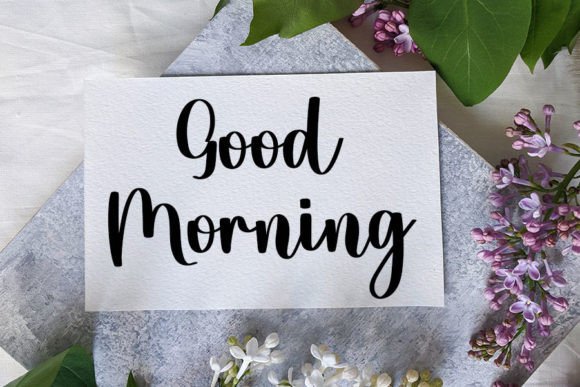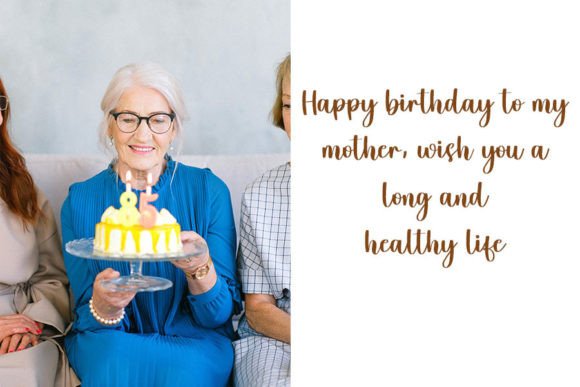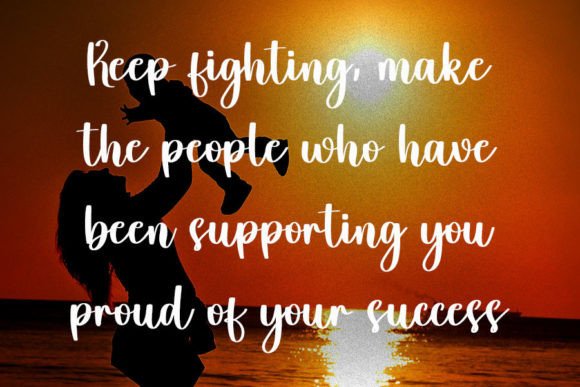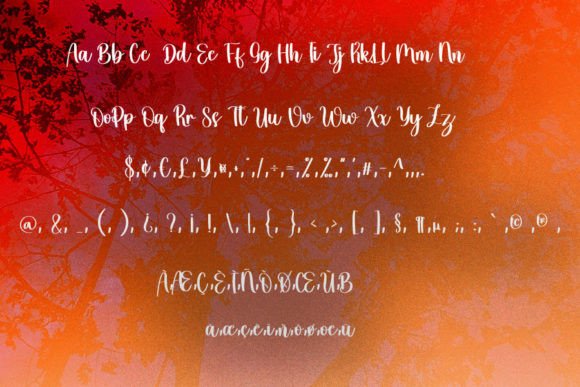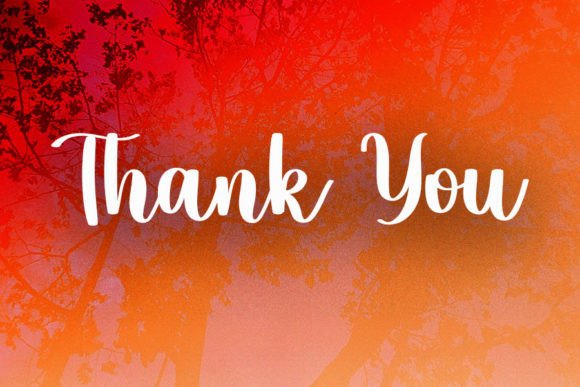
Introducing Birthday Font: The Sweet and Beautiful Handwritten Font for Your Design Projects
Are you looking for a font that can add a touch of luxury and elegance to your design projects? Look no further than the Birthday Font! This sweet and beautiful handwritten font is perfect for designers and crafters who want to create stunning designs that stand out from the crowd. In this article, we’ll take a closer look at the features of the Birthday Font and how you can use it to elevate your design projects.
A Font that Dances with Elegance
The Birthday Font is a handwritten font that features characters that dance along the baseline, giving it a playful and elegant feel. The font’s unique design makes it perfect for a variety of design projects, from birthday cards and invitations to branding and packaging. With its luxurious and sophisticated look, the Birthday Font is sure to add a touch of glamour to any design project.
Key Features of the Birthday Font
- Handwritten with love: The Birthday Font is a carefully crafted handwritten font that is designed to look like it was written with love and care.
- Dancing characters: The font features characters that dance along the baseline, giving it a playful and elegant feel.
- Luxurious and sophisticated: The Birthday Font has a luxurious and sophisticated look that is perfect for high-end design projects.
- Perfect for a variety of designs: The font is versatile and can be used for a variety of design projects, from birthday cards and invitations to branding and packaging.
How to Use the Birthday Font in Your Design Projects
The Birthday Font is easy to use and can be incorporated into a variety of design projects. Here are a few ideas to get you started:
- Birthday cards and invitations: The Birthday Font is perfect for creating custom birthday cards and invitations that are sure to impress.
- Branding and packaging: The font’s luxurious and sophisticated look makes it perfect for branding and packaging design projects.
- Social media graphics: The Birthday Font can be used to create stunning social media graphics that are sure to grab attention.
- Wedding and event designs: The font’s elegant and sophisticated look makes it perfect for wedding and event designs.
Tips for Getting the Most Out of the Birthday Font
Here are a few tips for getting the most out of the Birthday Font:
- Experiment with different colors: The Birthday Font looks great in a variety of colors, so don’t be afraid to experiment and find the perfect color for your design.
- Pair it with other fonts: The Birthday Font can be paired with other fonts to create a unique and interesting look.
- Use it in combination with images: The font looks great when used in combination with images, so consider adding a photo or illustration to your design.
The Birthday Font is a sweet and beautiful handwritten font that is perfect for designers and crafters who want to add a touch of luxury and elegance to their design projects. With its unique design and versatile features, the Birthday Font is sure to become a go-to font in your design arsenal. So why wait? Download the Birthday Font today and start creating stunning designs that will leave a lasting impression!
Whether you’re a professional designer or a crafter looking for a unique font to use in your projects, the Birthday Font is a great choice. Its luxurious and sophisticated look makes it perfect for a variety of design projects, from birthday cards and invitations to branding and packaging. So go ahead, get creative, and see what amazing designs you can create with the Birthday Font!